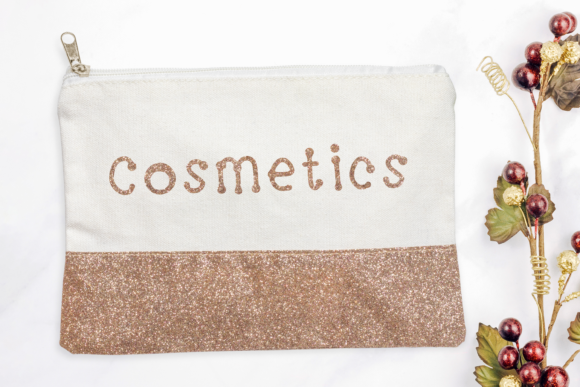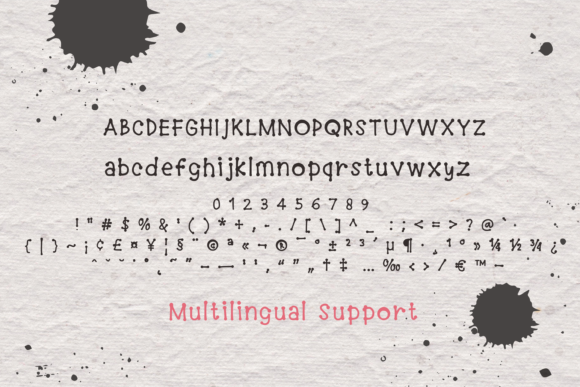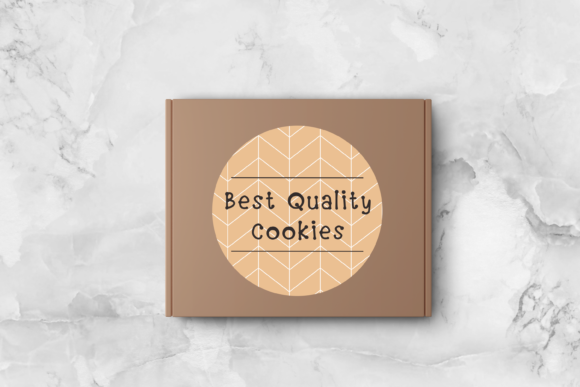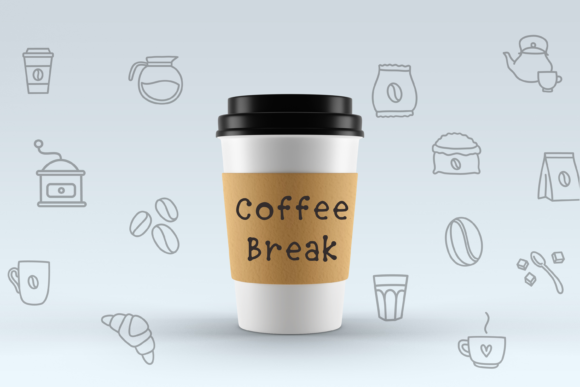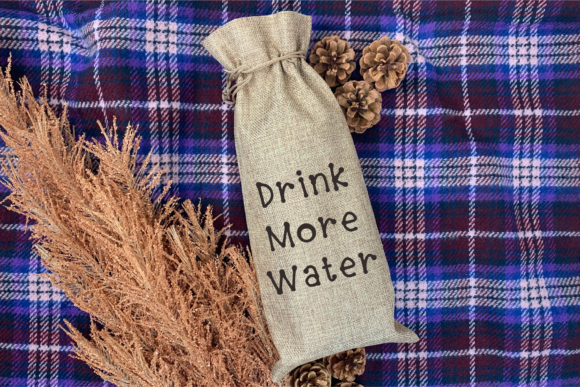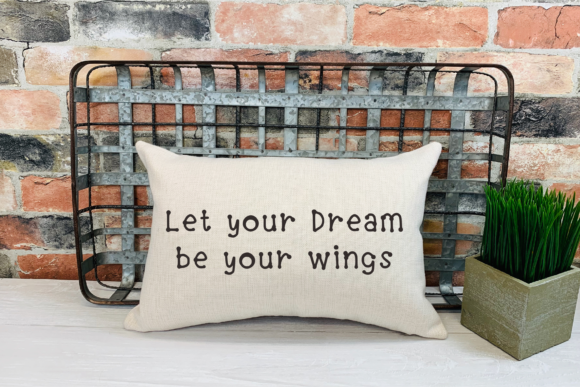
Introducing Great Ink Font: The Perfect Handwritten Companion for Designers and Crafters
Are you tired of using the same old fonts in your designs? Look no further than Great Ink Font, a simple and friendly handwritten font that’s perfect for adding a personal touch to your projects. With its natural and unique style, Great Ink Font is incredibly versatile and can be used in a wide range of designs, from rustic and vintage to modern and playful.
The Characteristics of Great Ink Font
Great Ink Font is a handwritten font that’s designed to look like it was written with a pen or pencil. Its natural, uneven lines and subtle imperfections give it a charming, homemade feel that’s perfect for designs that need a personal touch. The font is highly legible, making it suitable for use in a variety of contexts, from body text to headings and titles.
One of the standout features of Great Ink Font is its unique style. Unlike more formal, traditional fonts, Great Ink Font has a relaxed, conversational feel that’s perfect for designs that need to connect with their audience on a more personal level. Whether you’re designing a logo, a poster, or a social media graphic, Great Ink Font is a great choice.
What Makes Great Ink Font So Versatile?
So, what makes Great Ink Font so versatile? For starters, its natural style means that it can be used in a wide range of designs, from rustic and vintage to modern and playful. The font is also highly legible, making it suitable for use in a variety of contexts, from body text to headings and titles.
Another reason why Great Ink Font is so versatile is that it’s a highly adaptable font. It can be used in designs that require a bold, eye-catching font, or in designs that need a more subtle, understated approach. Whether you’re designing a logo, a poster, or a social media graphic, Great Ink Font is a great choice.
Great Ink Font is a perfect choice for designers and crafters who want to add a personal touch to their projects. The font is ideal for use in a variety of design projects, including:
- Social media graphics and ads
- Stationery and greeting cards
- Crafting projects, such as scrapbooking and journaling
Whether you’re a professional designer or a crafter who loves to make things, Great Ink Font is a great addition to your font library. Its natural, unique style makes it perfect for adding a personal touch to your projects, and its versatility means that it can be used in a wide range of designs.
Tips for Using Great Ink Font
Here are a few tips for using Great Ink Font in your designs:
- Use Great Ink Font as a headline font to add a personal touch to your designs
- Pair Great Ink Font with a more formal font to create a striking contrast
- Use Great Ink Font to create a sense of warmth and connection with your audience
By following these tips, you can get the most out of Great Ink Font and create designs that are truly unique and engaging.
In conclusion, Great Ink Font is a simple and friendly handwritten font that’s perfect for designers and crafters who want to add a personal touch to their projects. Its natural and unique style makes it incredibly versatile, and it can be used in a wide range of designs. Whether you’re designing a logo, a poster, or a social media graphic, Great Ink Font is a great choice. So why not give it a try and see how it can enhance your designs?